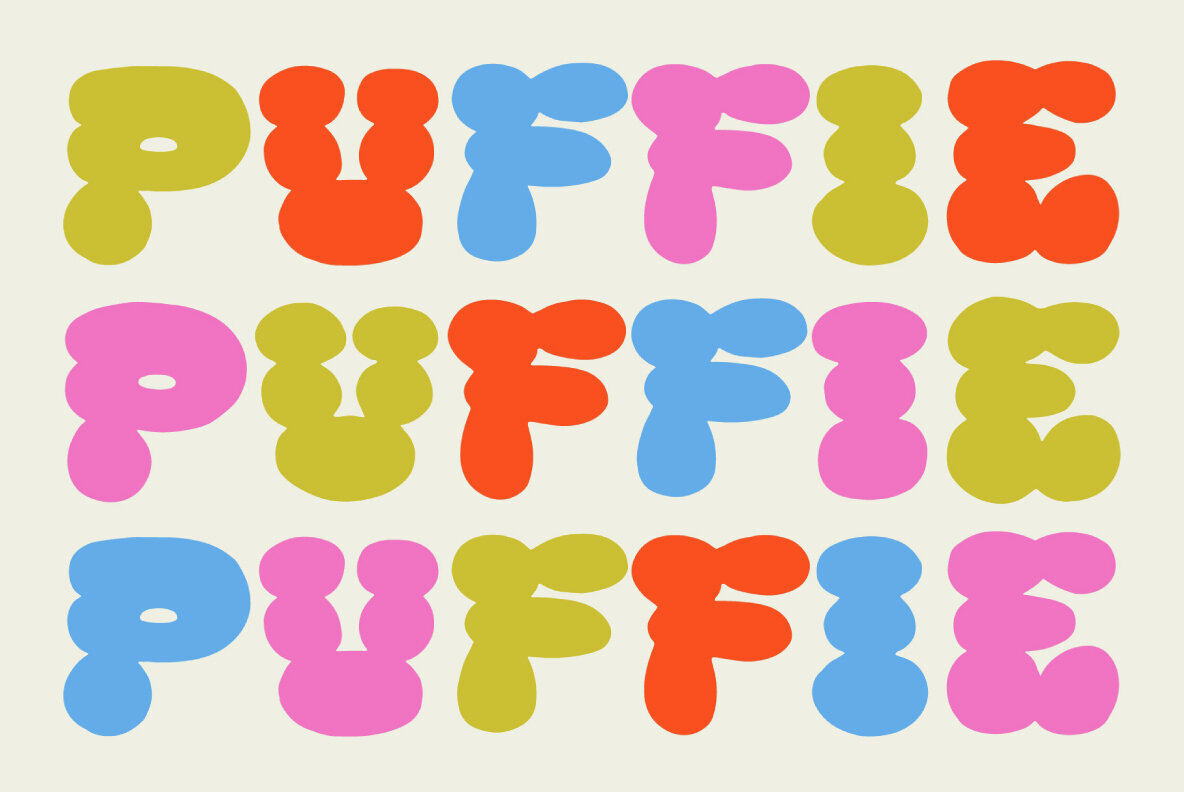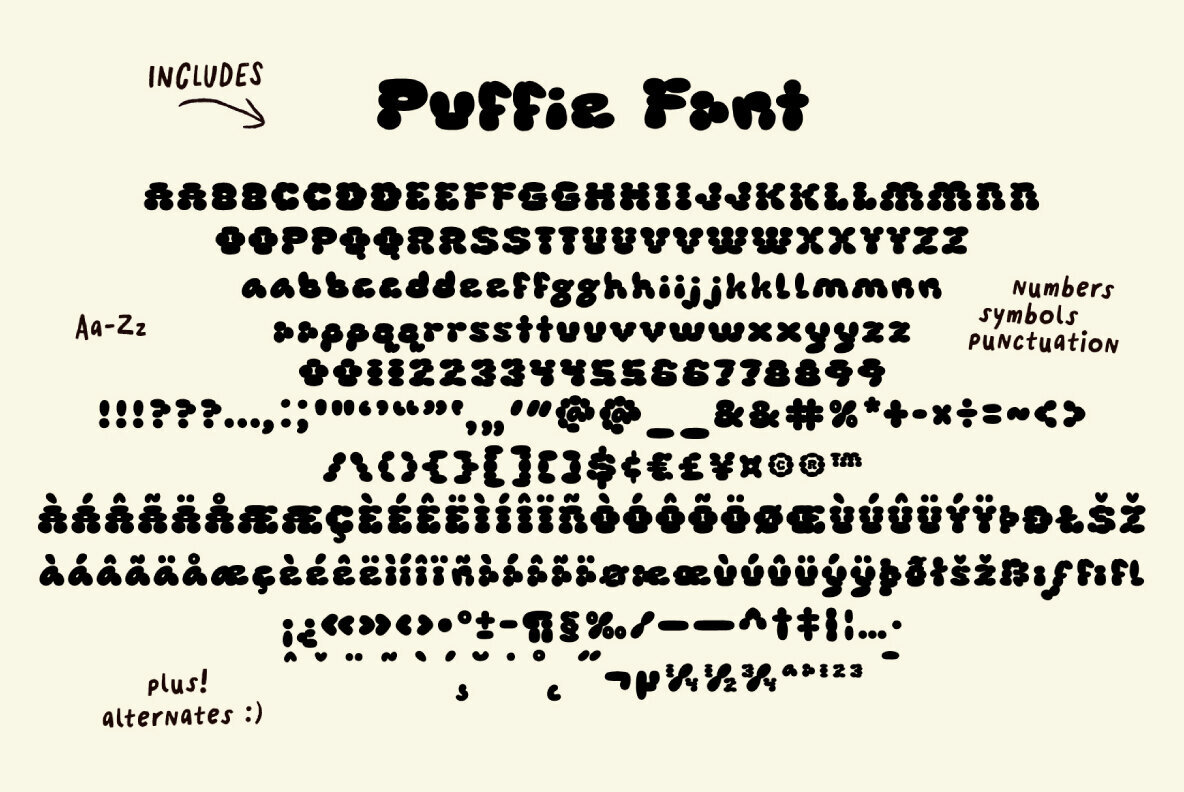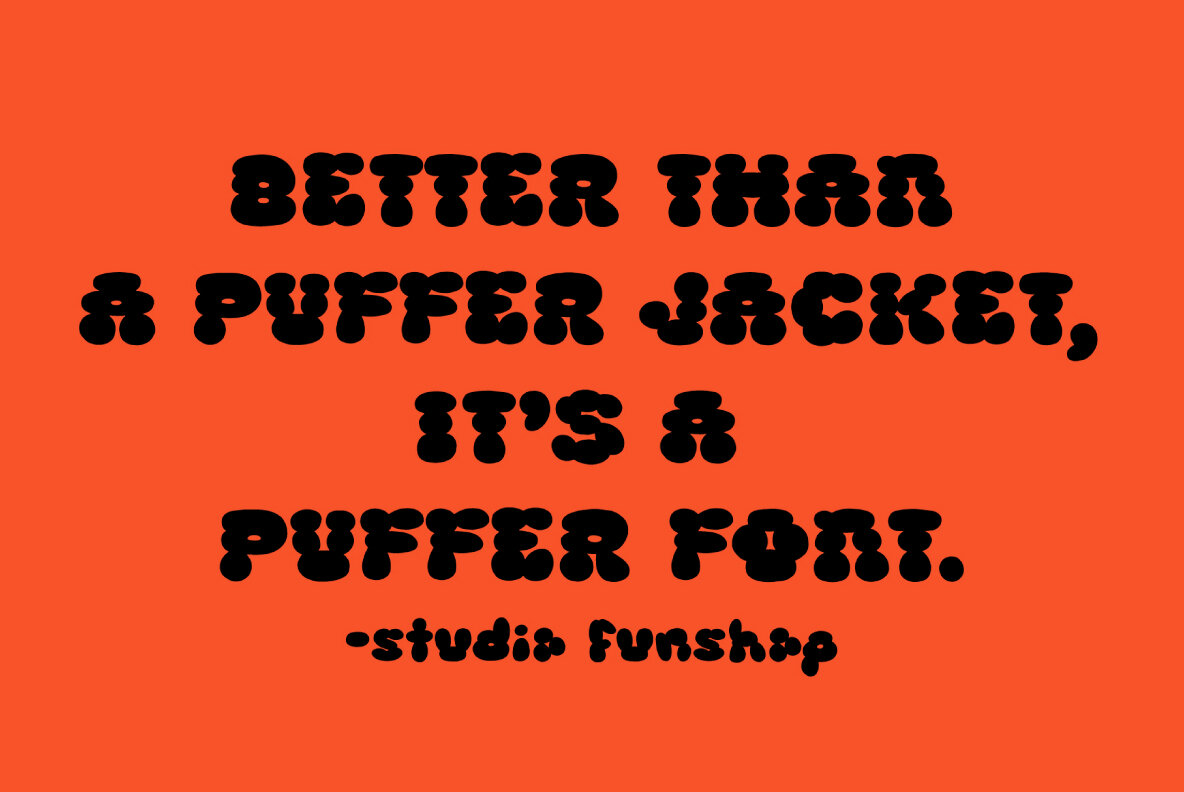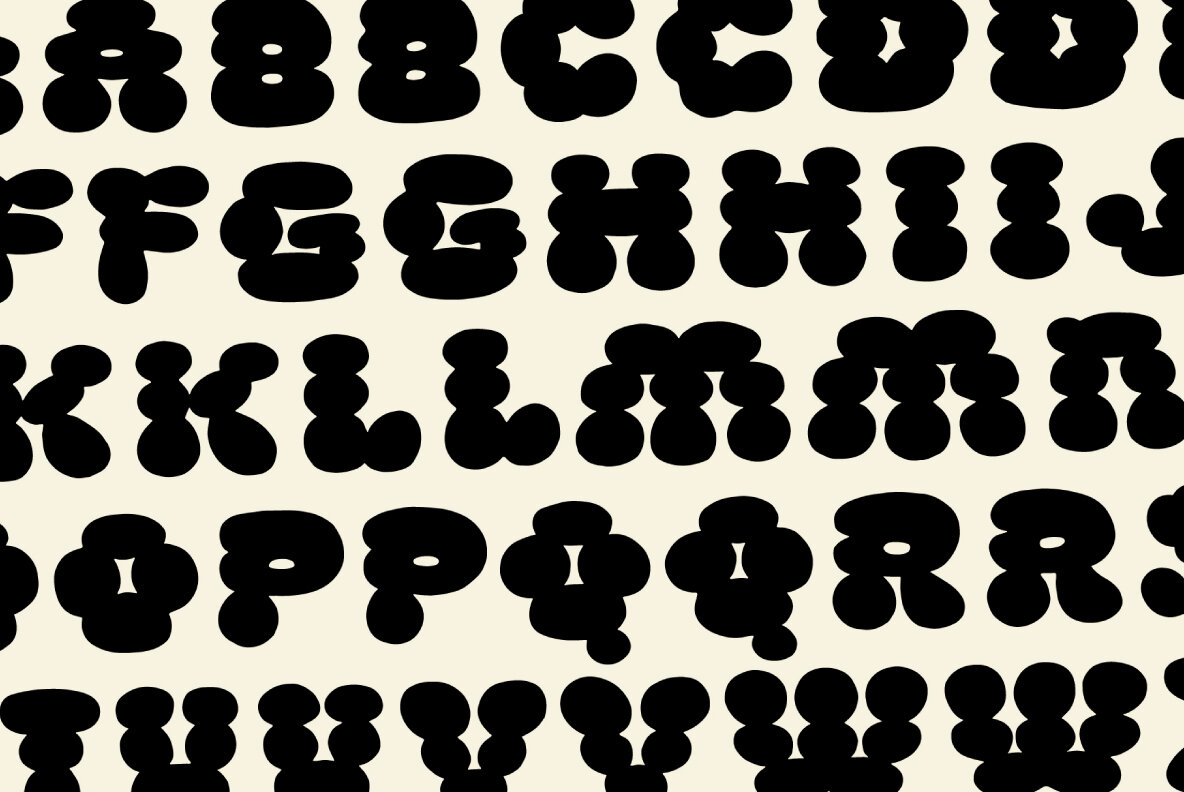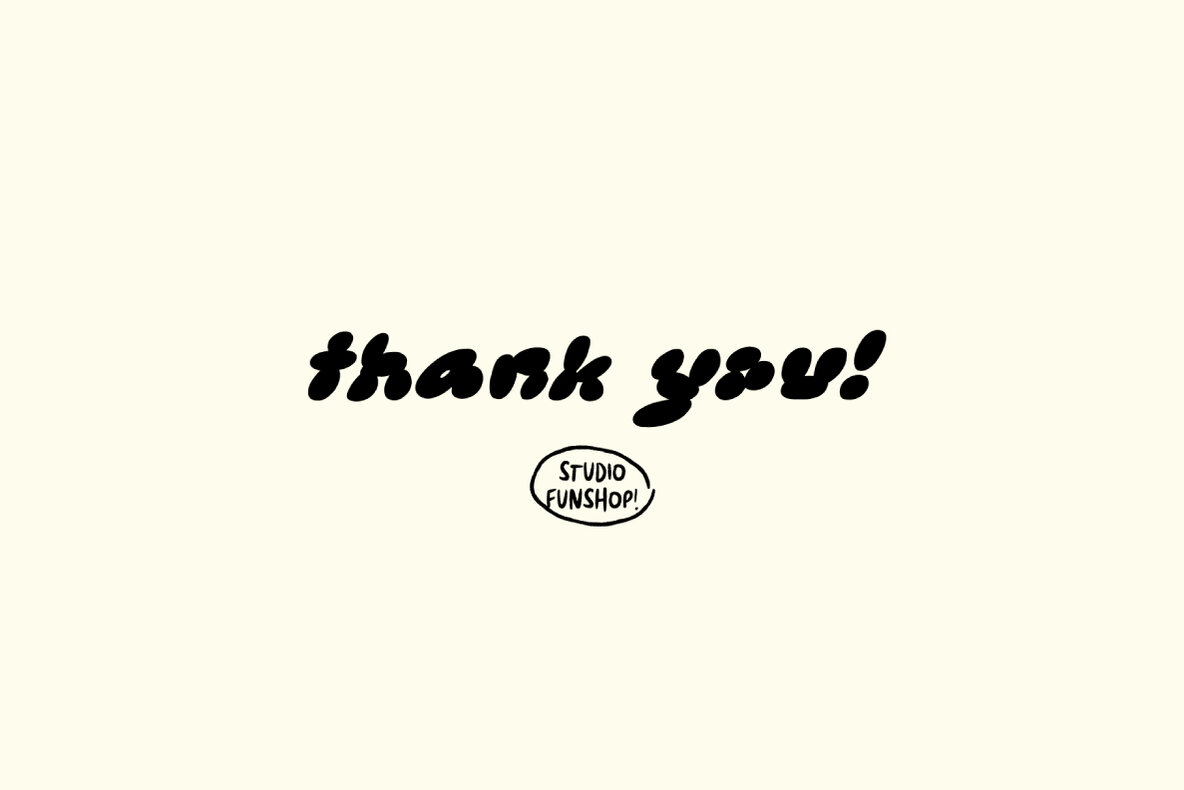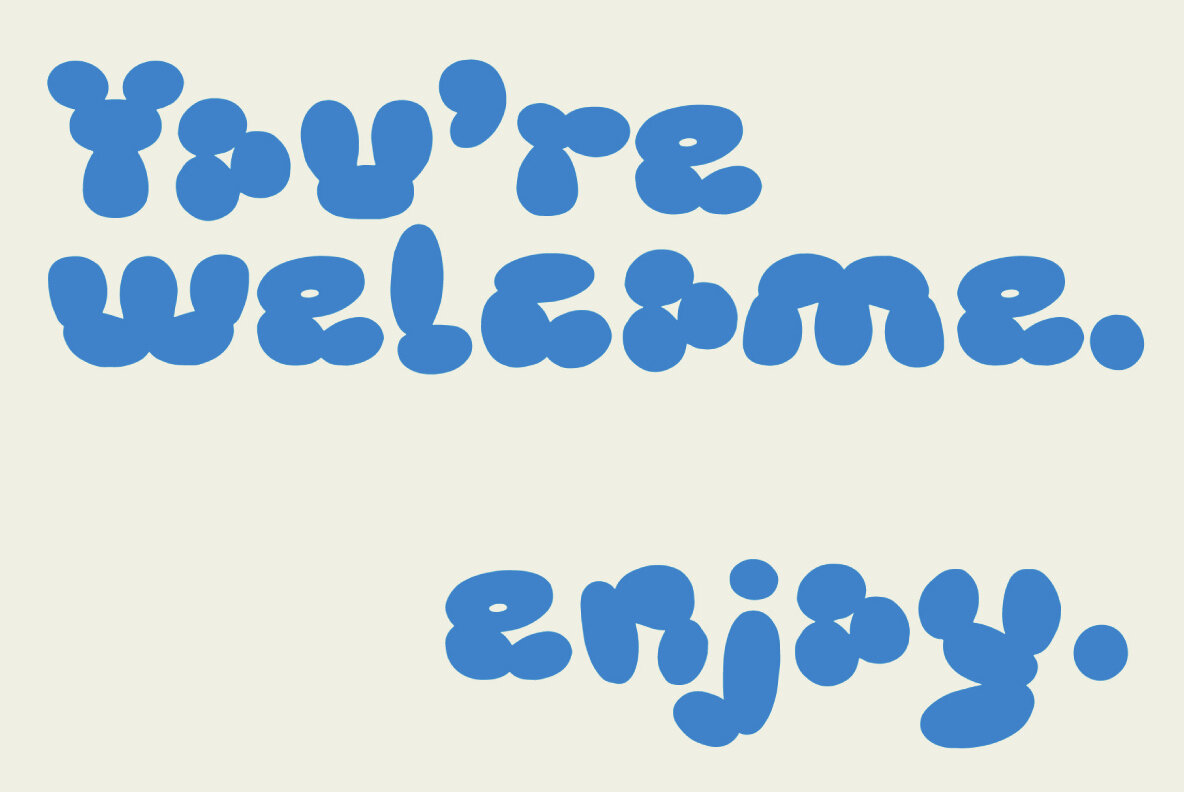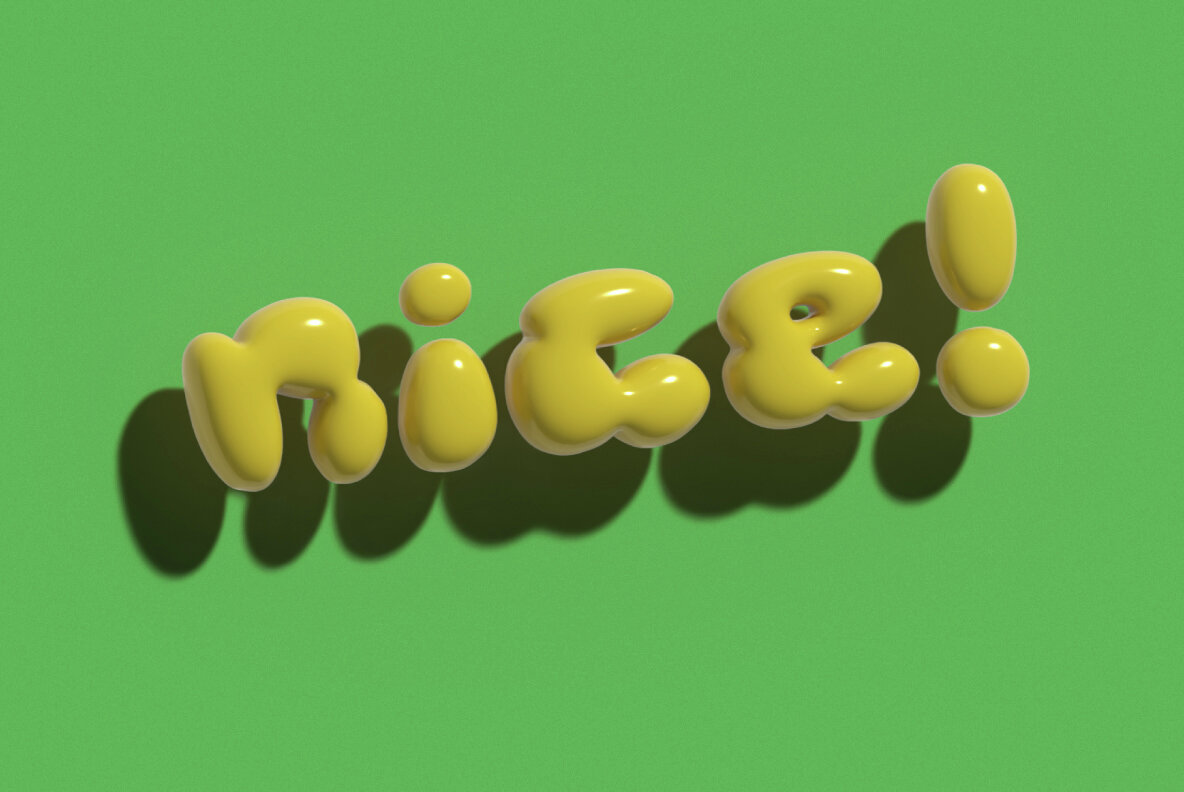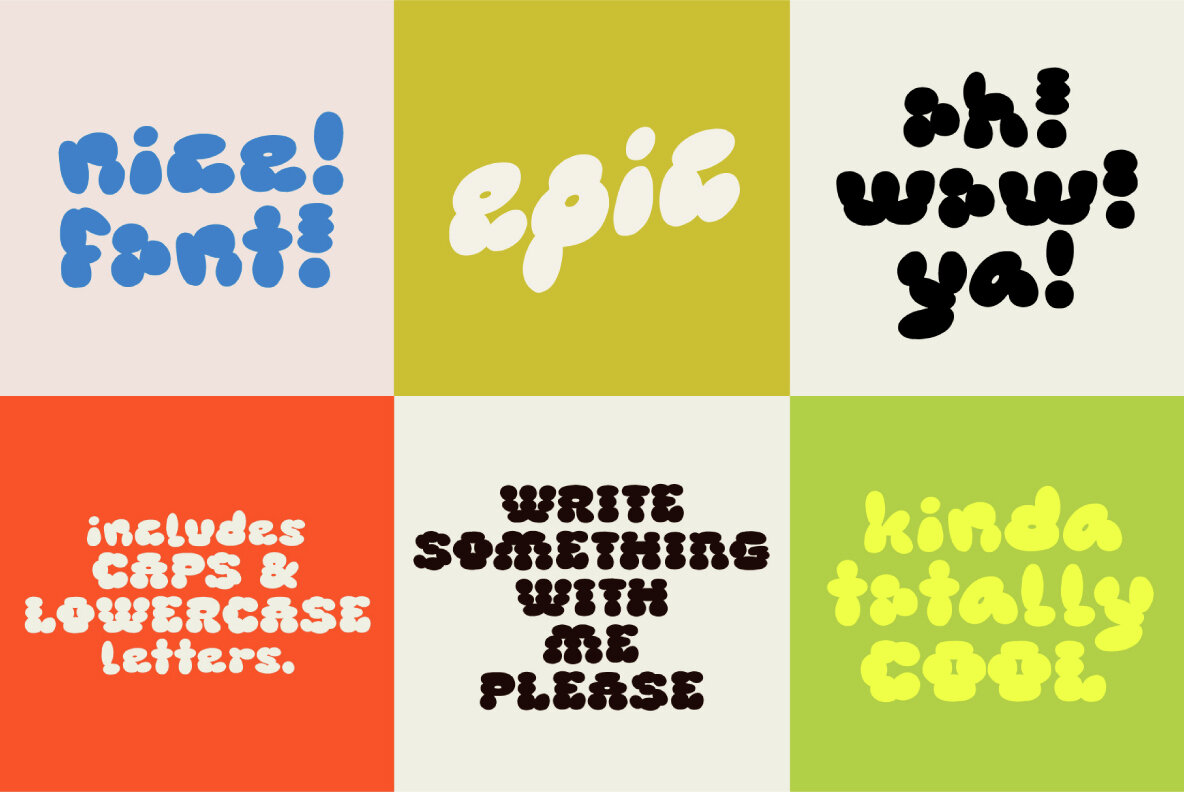
Puffie Font
Hello Puffie
Puffie is a hand-lettered bubble font designed for unique and creative projects. With its playful style, it's perfect for logos, quotes, art, branding, and more. Elevate your designs with the added charm of alternates for that extra handmade touch.Puffie Font: Hand-Lettered Bubble Style